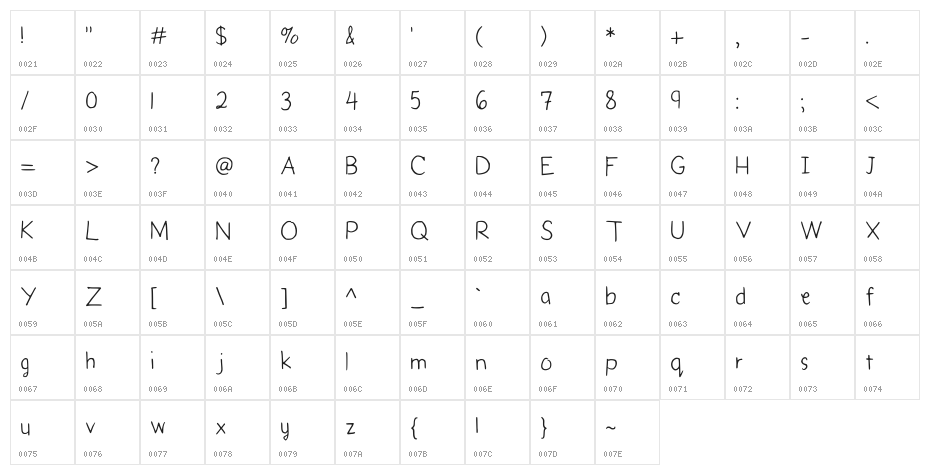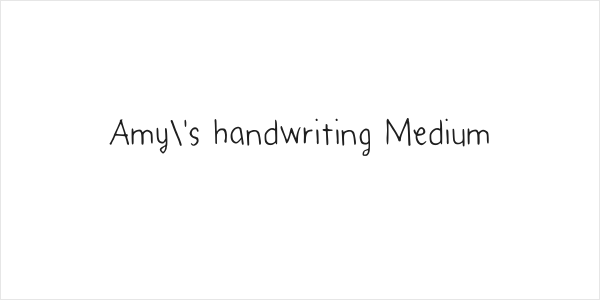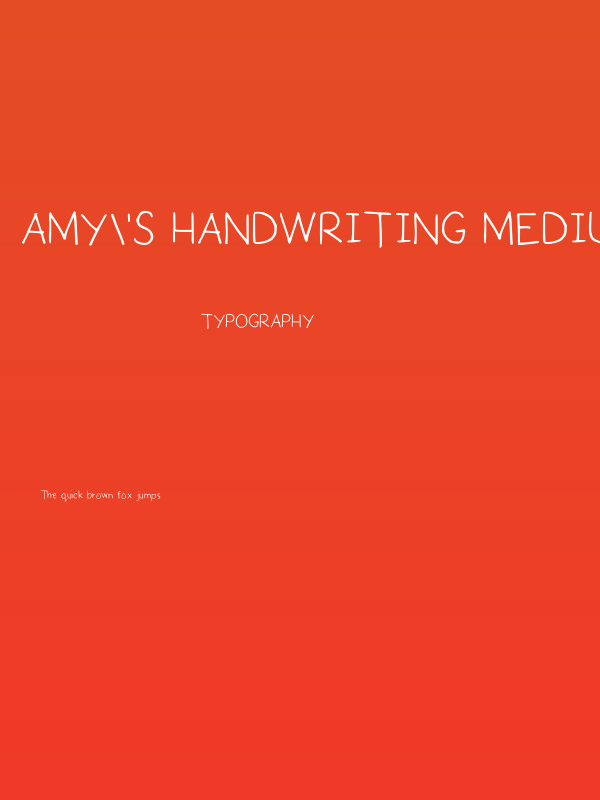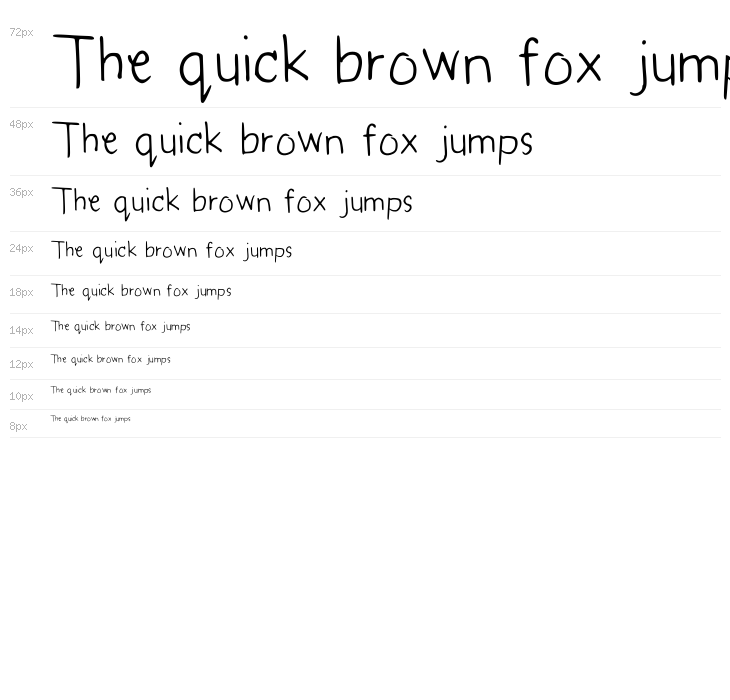
Amy's handwriting Medium Font
Amy's handwriting Medium Description
This font exudes a casual and friendly vibe, reminiscent of personal handwriting. The characters are slightly irregular, adding a touch of authenticity and warmth. The strokes are consistent in thickness, giving it a clean and approachable appearance. The uppercase letters are well-proportioned, while the lowercase letters have a playful, slightly whimsical quality. The numerals are clear and easy to read, maintaining the handwritten style. Special characters are thoughtfully designed to match the overall aesthetic, making this font versatile for various uses.
| Use Case | Invitations, Personal notes, Casual branding |
| Proposed Projects | Ideal for personal notes, invitations, casual branding, and educational materials. |